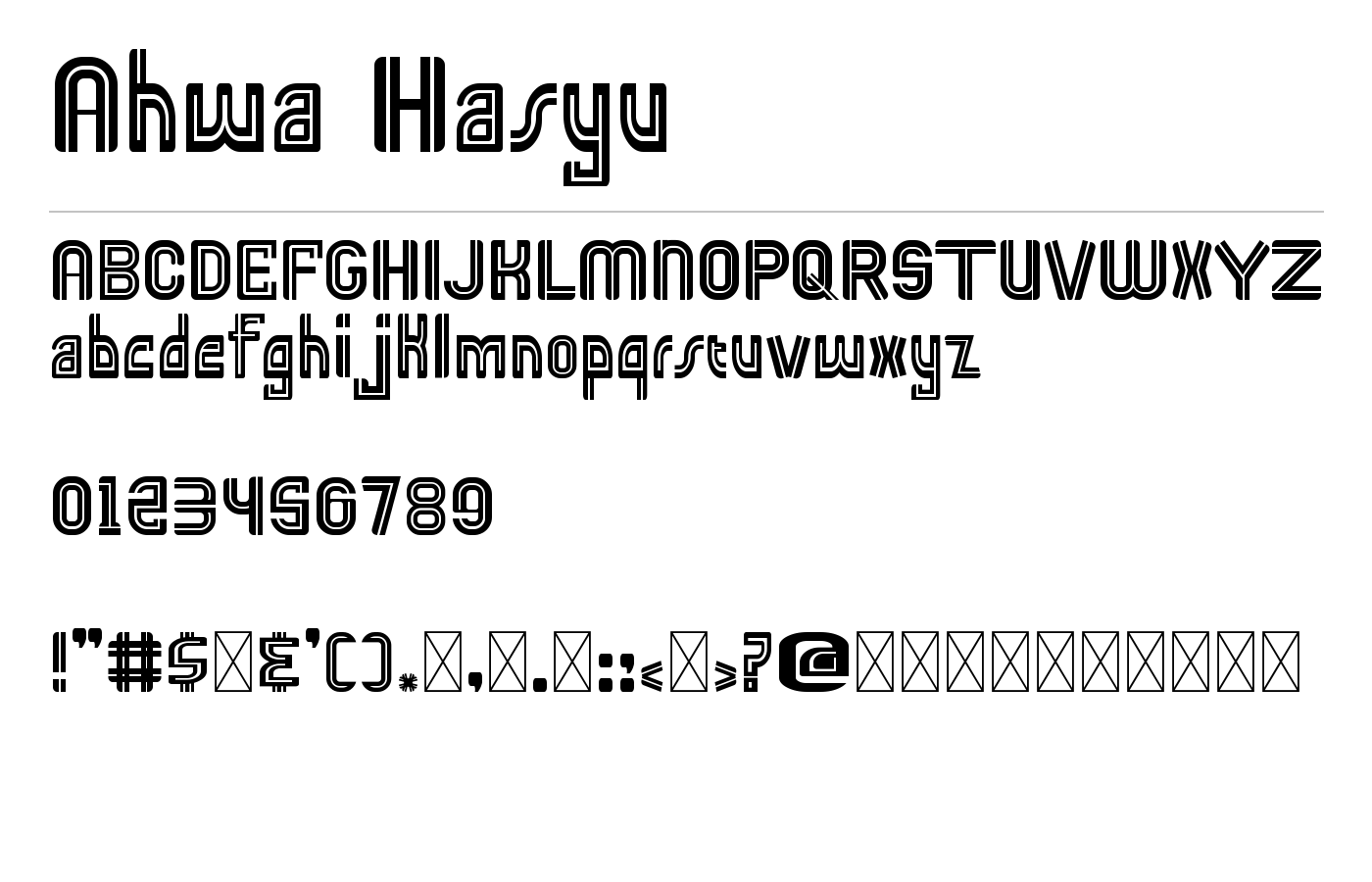
Ahwa Hasyu is a modern, geometric sans serif font featuring a distinctive double-line stroke design that gives it a bold, structured look with medium contrast. Its narrow width and high x-height make it ideal for eye-catching headlines and display use, evoking a futuristic and tech-inspired vibe. This font works well for branding, posters, and digital media where a unique, contemporary style is desired.
Ahwa Hasyu Font